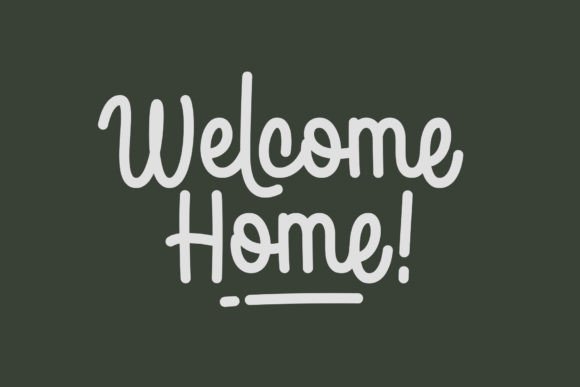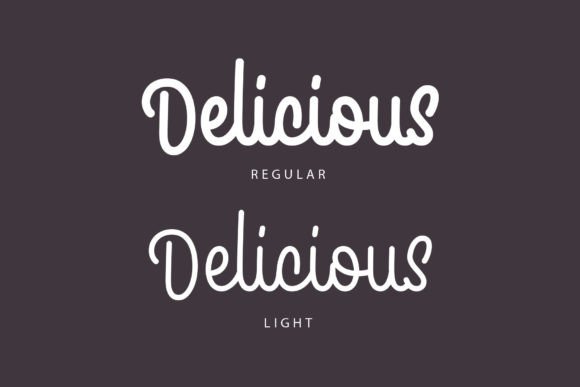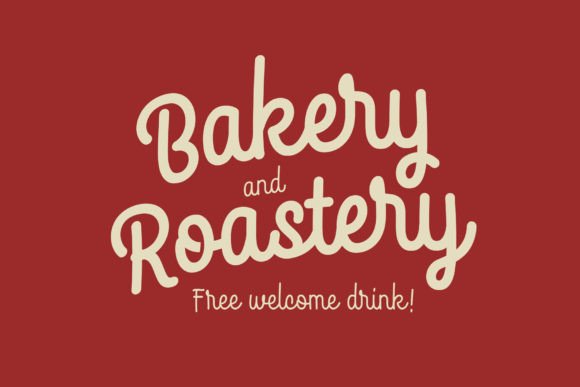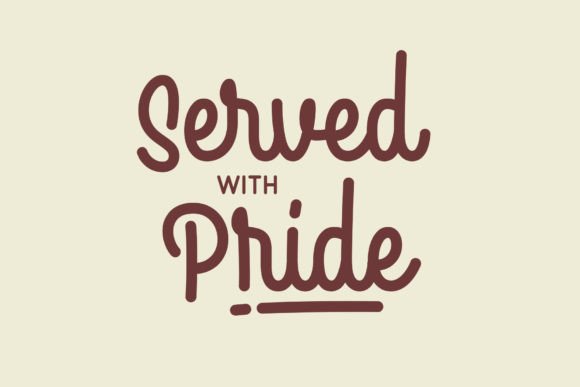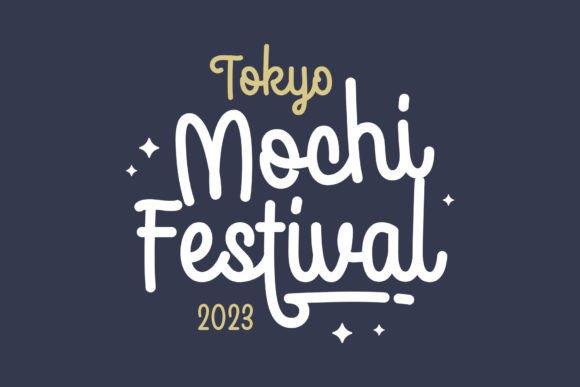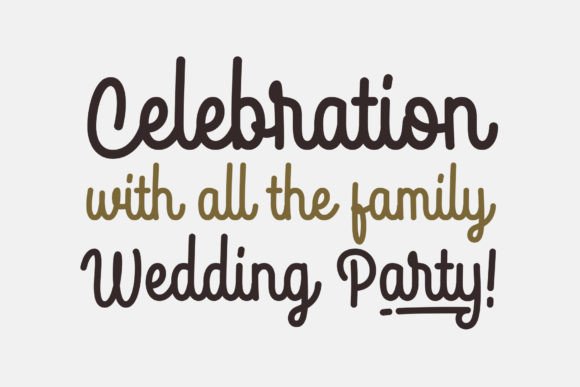
Introducing Belicia! Font: Elevate Your Designs with Elegance and Charm
In the world of design, fonts play a crucial role in conveying the tone and personality of a project. If you’re looking for a font that exudes cheerfulness, elegant style, and versatility, look no further than Belicia! This stunning monoline font is designed to elevate your designs and make them stand out from the crowd. With its unslanted shape and playful impression, Belicia is the perfect choice for designers and crafters seeking a flexible and captivating font for their creative endeavors.
The Beauty of Belicia! Font
Belicia! Font is a script font that boasts a unique and charming aesthetic. Its monoline design gives it a clean and modern look, while its unslanted shape ensures that it remains elegant and sophisticated. This font is perfect for designers who want to add a touch of personality to their projects without sacrificing readability. Whether you’re working on a logo, poster, or packaging design, Belicia is sure to impress.
One of the standout features of Belicia! Font is its versatility. This font is designed to adapt effortlessly to any creative endeavor, making it the perfect choice for a wide range of design projects. From food menus and posters to logos, logotypes, branding, headlines, weddings, flyers, quotes, labels, packaging, signage, signboards, and beyond, Belicia is the ultimate font for designers and crafters.
Packed with Special Characters
Belicia! Font is packed with special characters, allowing you to create truly unique and captivating designs. With a range of alternative characters and glyphs, you can add a personal touch to your projects and make them stand out from the crowd. Whether you’re looking to create a bold and eye-catching design or a more subtle and elegant one, Belicia has got you covered.
Multilingual Support
In today’s global design landscape, multilingual support is essential. Belicia! Font provides just that, ensuring that it can complement your design needs regardless of the language or region you’re targeting. This font is designed to work seamlessly with a wide range of languages, making it the perfect choice for designers and businesses with a global reach.
Belicia! Font is perfect for designers and crafters who want to elevate their designs and take their creativity to the next level. Whether you’re a professional designer or a DIY enthusiast, this font is designed to help you create stunning and effective designs. With its ease of use and flexibility, Belicia is an excellent addition to any design toolkit.
Design Ideas with Belicia! Font
So, what can you create with Belicia! Font? The possibilities are endless! Here are a few design ideas to get you started:
- Food menus: Add a touch of elegance and sophistication to your restaurant or cafe menu with Belicia.
- Posters: Create eye-catching posters for events, promotions, or advertising campaigns with this stunning font.
- Logos and branding: Establish a strong brand identity with Belicia’s unique and captivating design.
- Weddings: Make your wedding invitations, programs, and decorations truly special with this beautiful font.
- Packaging: Elevate your product packaging with Belicia’s elegant and modern design.
In conclusion, Belicia! Font is a versatile and captivating font that is perfect for designers and crafters seeking to elevate their designs. With its monoline design, unslanted shape, and special characters, this font offers a unique and elegant aesthetic that is sure to impress. Whether you’re working on a logo, poster, packaging design, or any other creative project, Belicia is the perfect choice. So why wait? Download Belicia! Font today and take your designs to the next level.